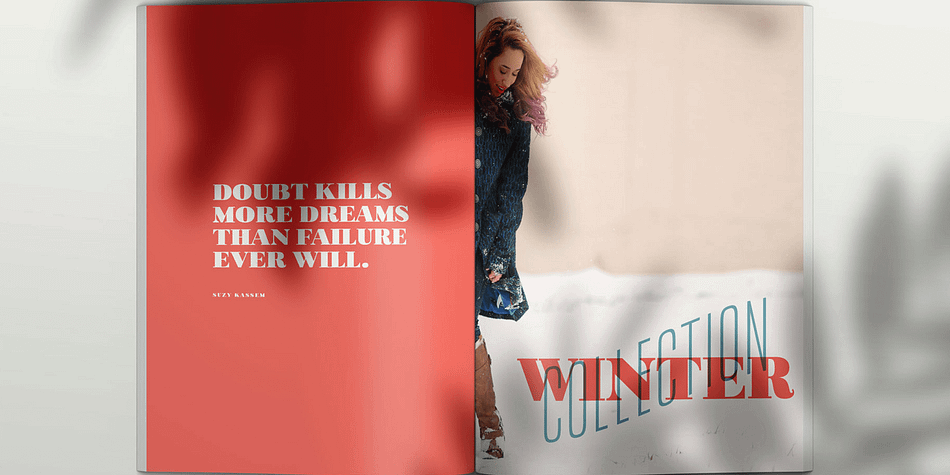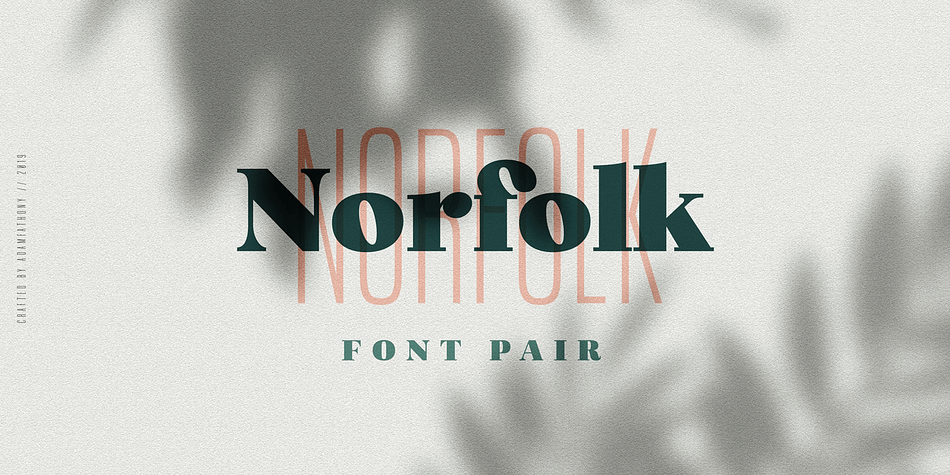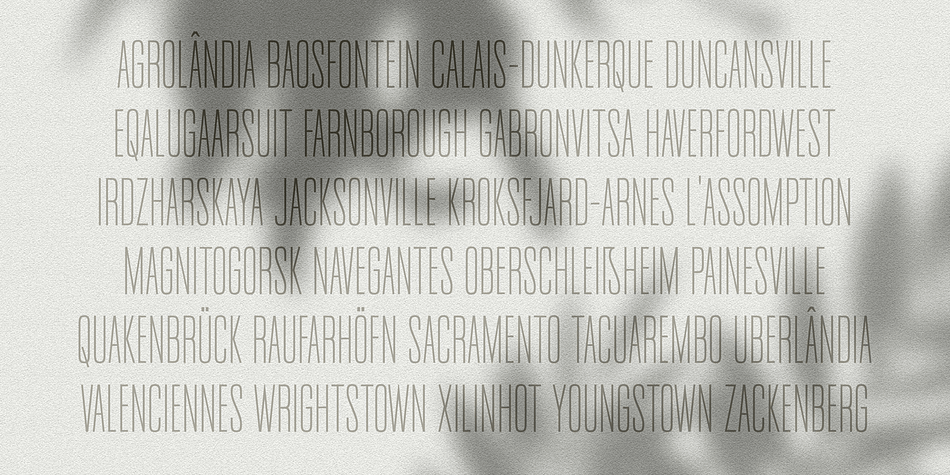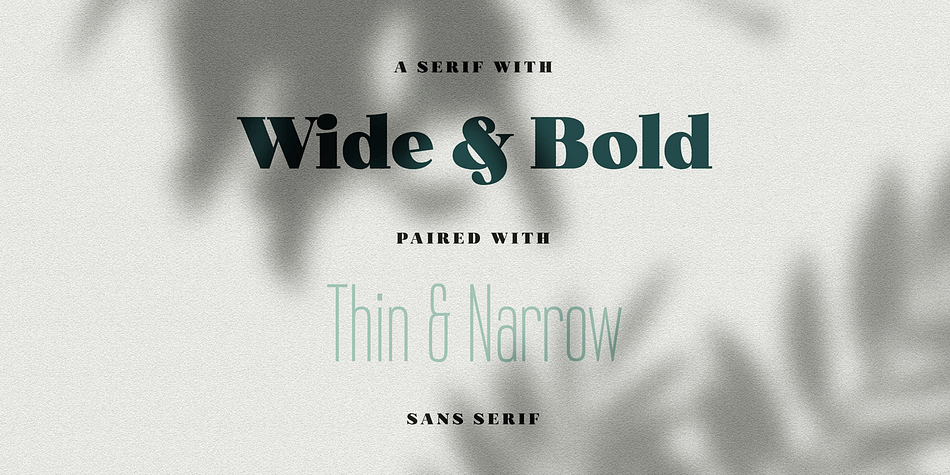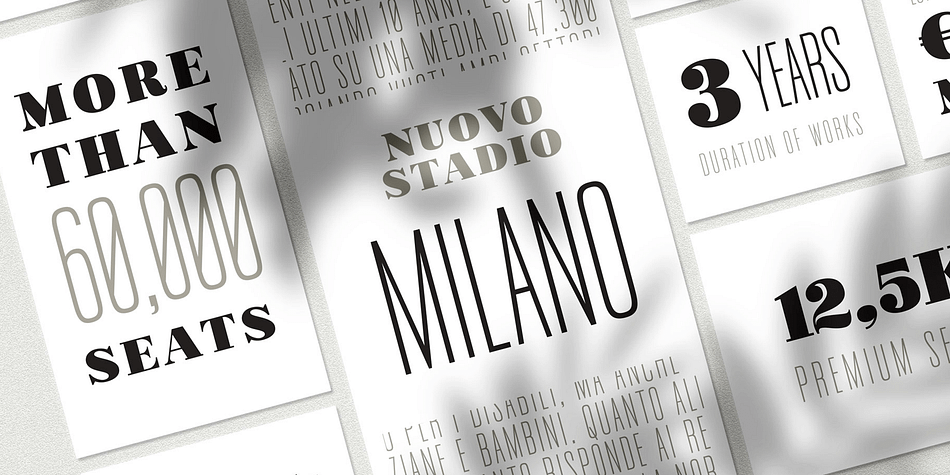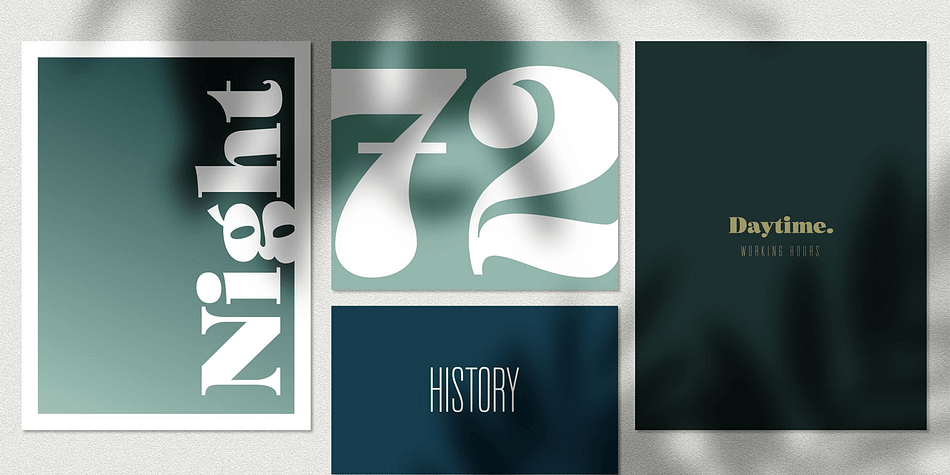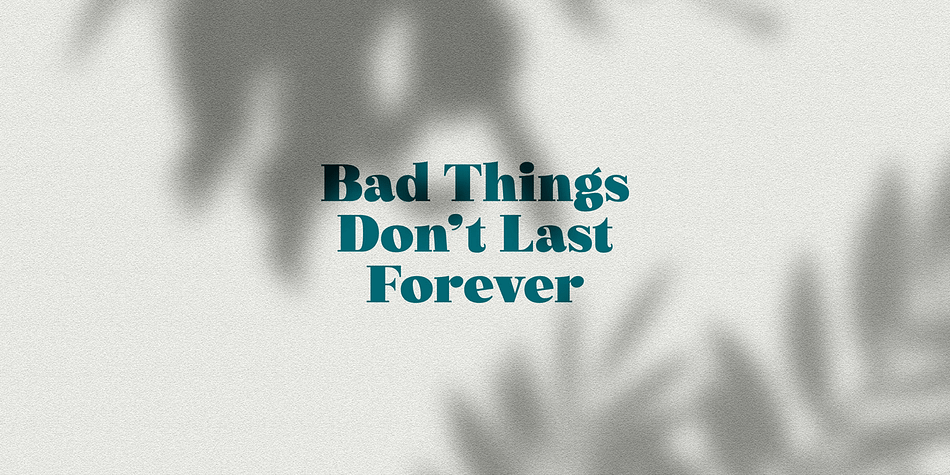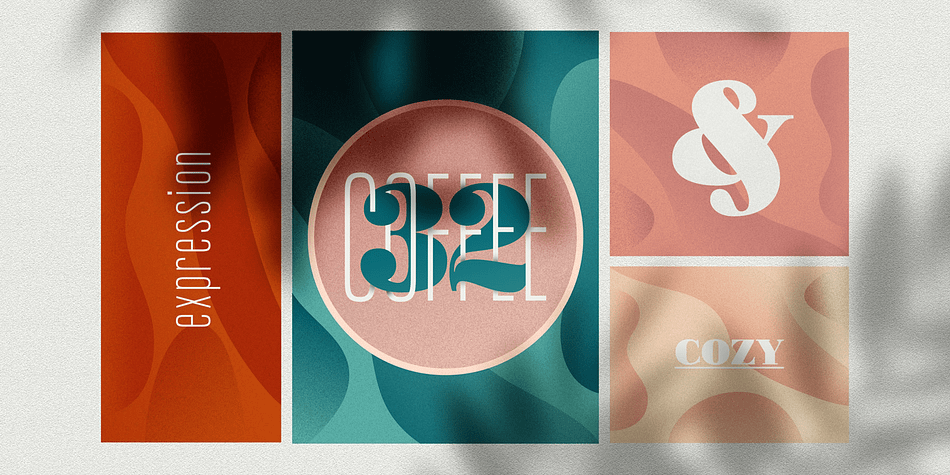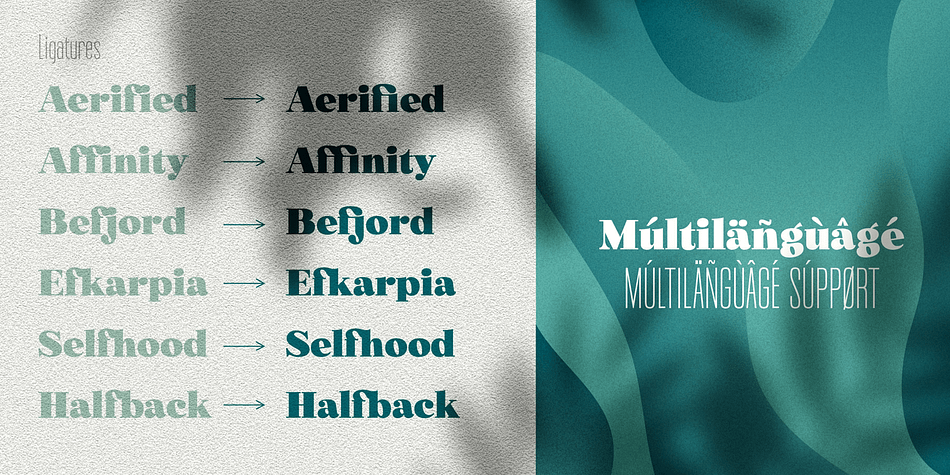
Norfolk
Norfolk is a sans serif and serif font family. This typeface has two styles and was published by AF Studio.
Introducing Norfolk A new combination of Bold Serif fonts with Narrow Sans Serif fonts.
Norfolk are inspired from a something simple, elegant, usable and versatile. So I’ve made as simple as possible on the fonts. Made it with very careful to get the clean looking fonts. Since the characteristic of Norfolk are simple, so I decide to not include the alternate characters. The opentype features are available are just only ligatures to avoid the collision of a letter.
Norfolk also support multilanguage :
Afrikaans, Albanian, Asu, Basque, Bemba, Bena, Catalan, Chiga, Cornish, Danish, Dutch, English, Faroese, Filipino, French, Friulian, Galician, German, Gusii, Icelandic, Indonesian, Irish, Italian, Kabuverdianu, Kalenjin, Kinyarwanda, Low German, Luo, Luxembourgish, Luyia, Machame, Makhuwa-Meetto, Makonde, Malagasy, Malay, Manx, Morisyen, North Ndebele, Norwegian Bokmål, Norwegian Nynorsk, Nyankole, Oromo, Portuguese, Romansh, Rombo, Rundi, Rwa, Samburu, Sango, Sangu, Scottish Gaelic, Sena, Shambala, Shona, Soga, Somali, Spanish, Swahili, Swedish, Swiss German, Taita, Teso, Vunjo, Welsh, Western Frisian, Zulu